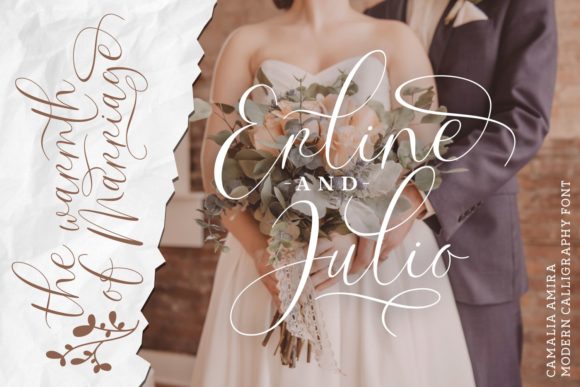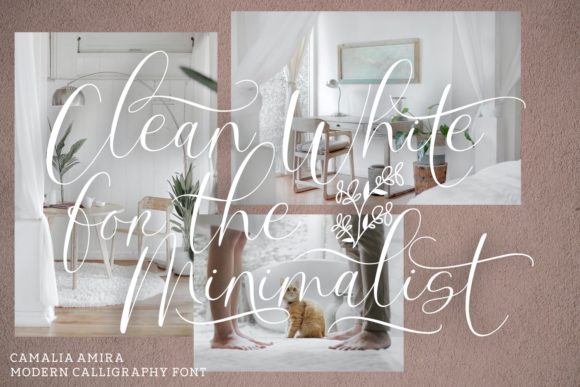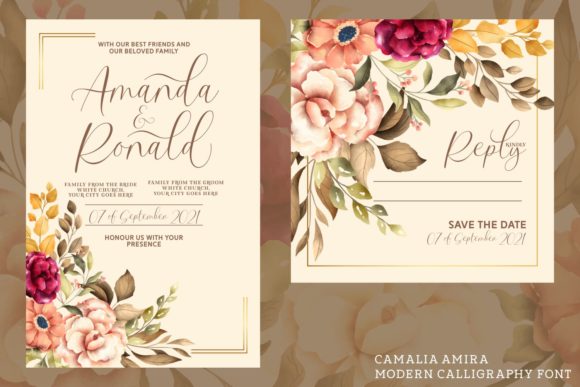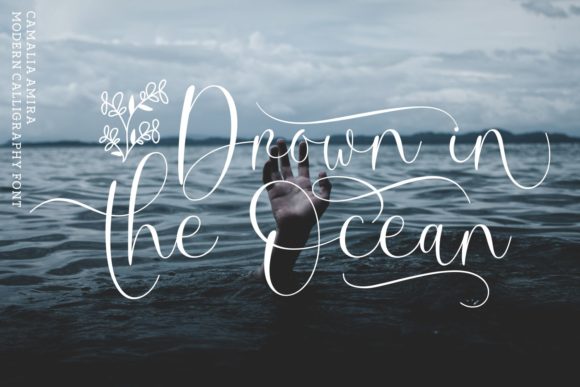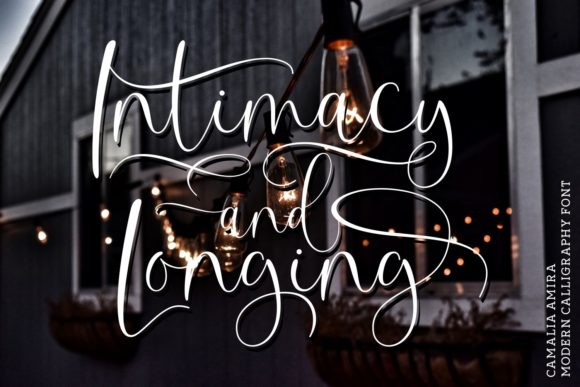
Camalia Amira Font
About Camalia Amira Font
Camalia Amira is a gorgeous and unique script font. This is a beautiful combination of timeless elegance and authentic calligraphy. It features a varying baseline, smooth lines, gorgeous glyphs and stunning alternates. Get inspired by its authentic feel and use it to create gorgeous wedding invitations, beautiful stationary art, eye-catching social media posts, and cute greeting cards.